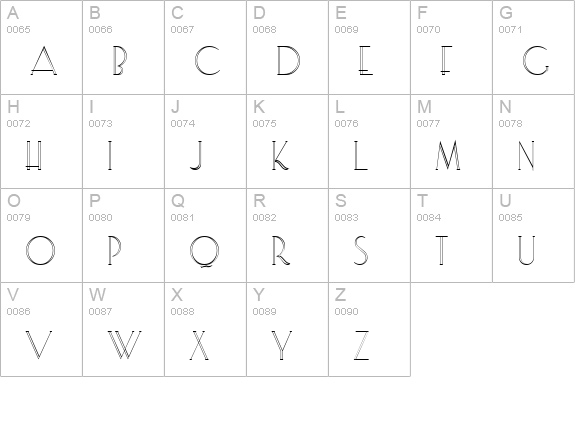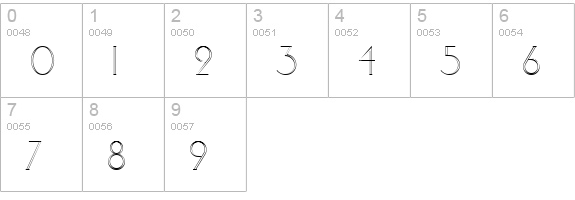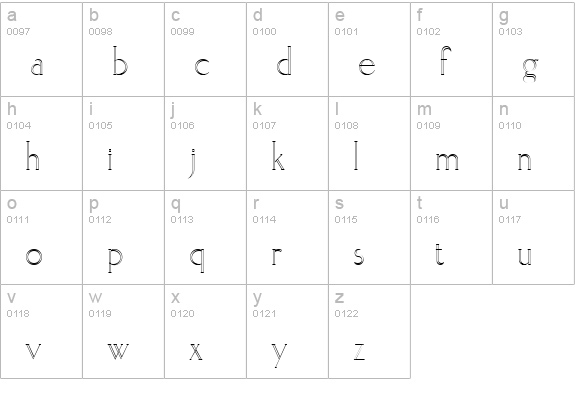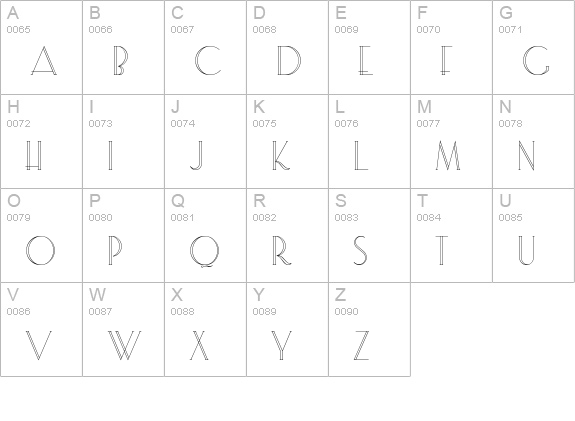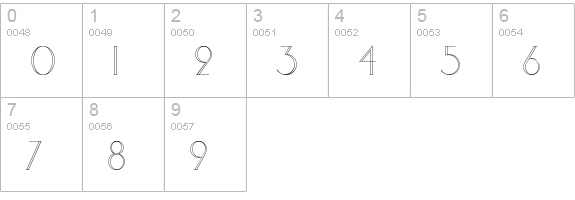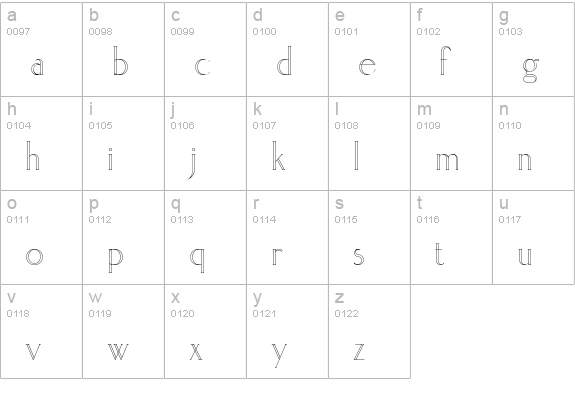
ElisiaOpenface Regular Font Details
ElisiaOpenface Regular is the standard, neutral variant in the ElisiaOpenface typeface family \xE2\x80\x94 well suited to general body text, paragraphs, and standard typographic work.
ElisiaOpenface Regular font is a stylish and elegant typeface that exudes sophistication and charm. Its delicate and graceful letterforms make it perfect for a wide range of design projects, from invitations to branding materials. The classic yet contemporary look of ElisiaOpenface Regular font adds a touch of timeless beauty to any text. What makes ElisiaOpenface Regular font even more appealing is that it is available for free download at FontsMarket.com. This means that you can easily access and use this stunning font in your projects without any cost. Don't miss out on the opportunity to enhance your designs with the beauty and versatility of ElisiaOpenface Regular font. Download it today and elevate your typography game to new heights.